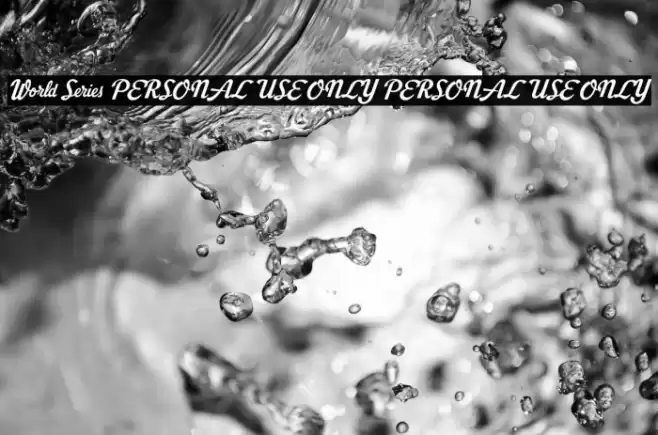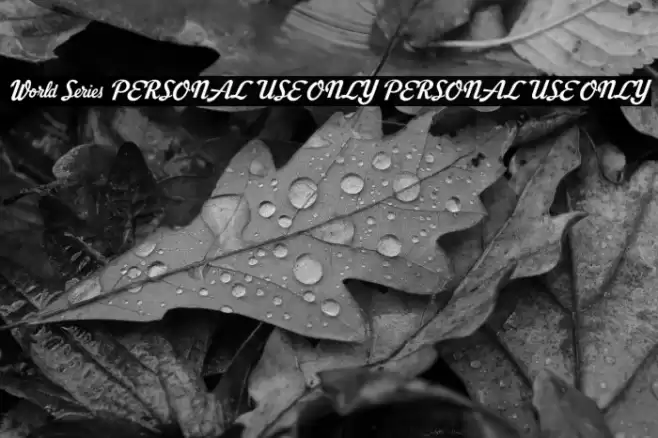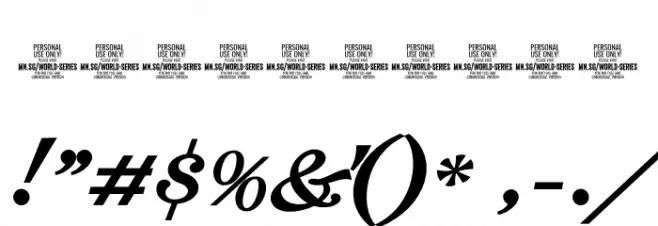
World Series PERSONAL USE ONLY Font
World Series PERSONAL USE ONLY Description
This font features a bold, cursive style with a strong emphasis on fluidity and elegance. The uppercase letters are characterized by sweeping curves and consistent slant, giving a sense of motion and grace. The lowercase letters maintain the same fluidity, with some letters like 'g' and 'y' having distinctive loops that add to the overall aesthetic. The numerals and special characters complement the alphabet with similar stylistic elements, ensuring a cohesive look. This font is ideal for projects that require a touch of sophistication and flair.
A bold, cursive font with elegant, sweeping curves and a cohesive style from Regular fonts.
- Proposed Projects: Ideal for wedding invitations, elegant branding, logo design, and decorative headlines.
- Overall Style: Elegant, Decorative
- Use Case: Headlines, Logos, Invitations